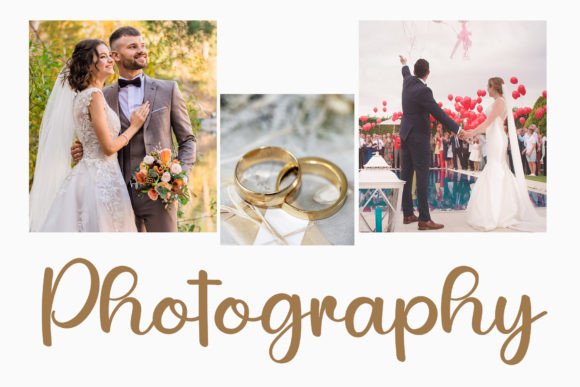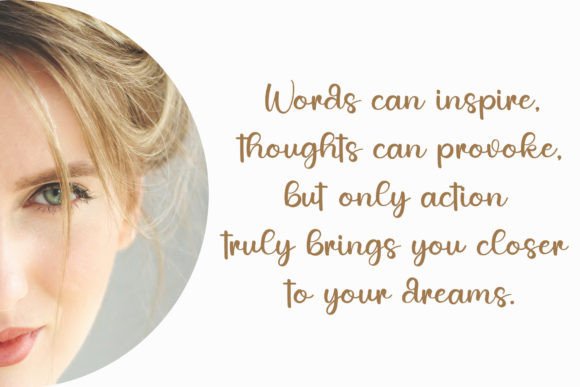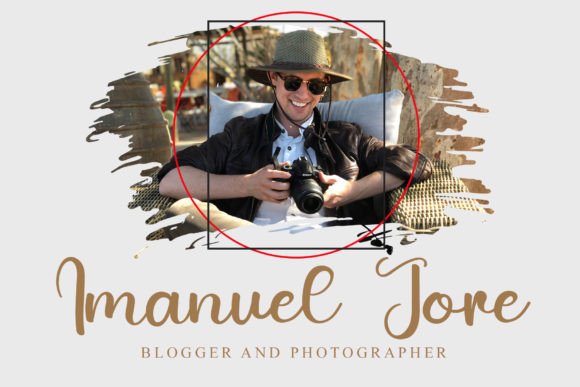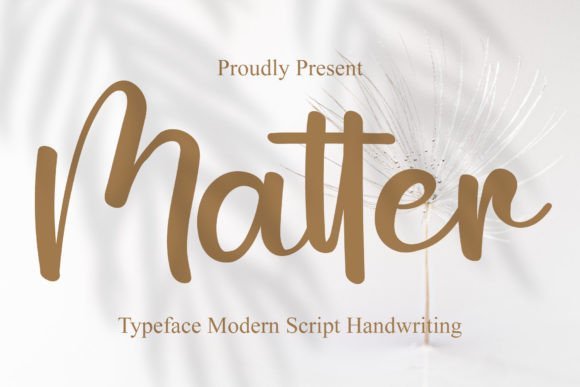
Introduction to Matter Font
Matter is a beautiful and whimsical script font.
It is defined by smooth curves and is perfect for fashion branding or editorial designs Add it confidently to your projects, and you will love the results.
Key Features of Matter Font
Why Choose Matter Font?